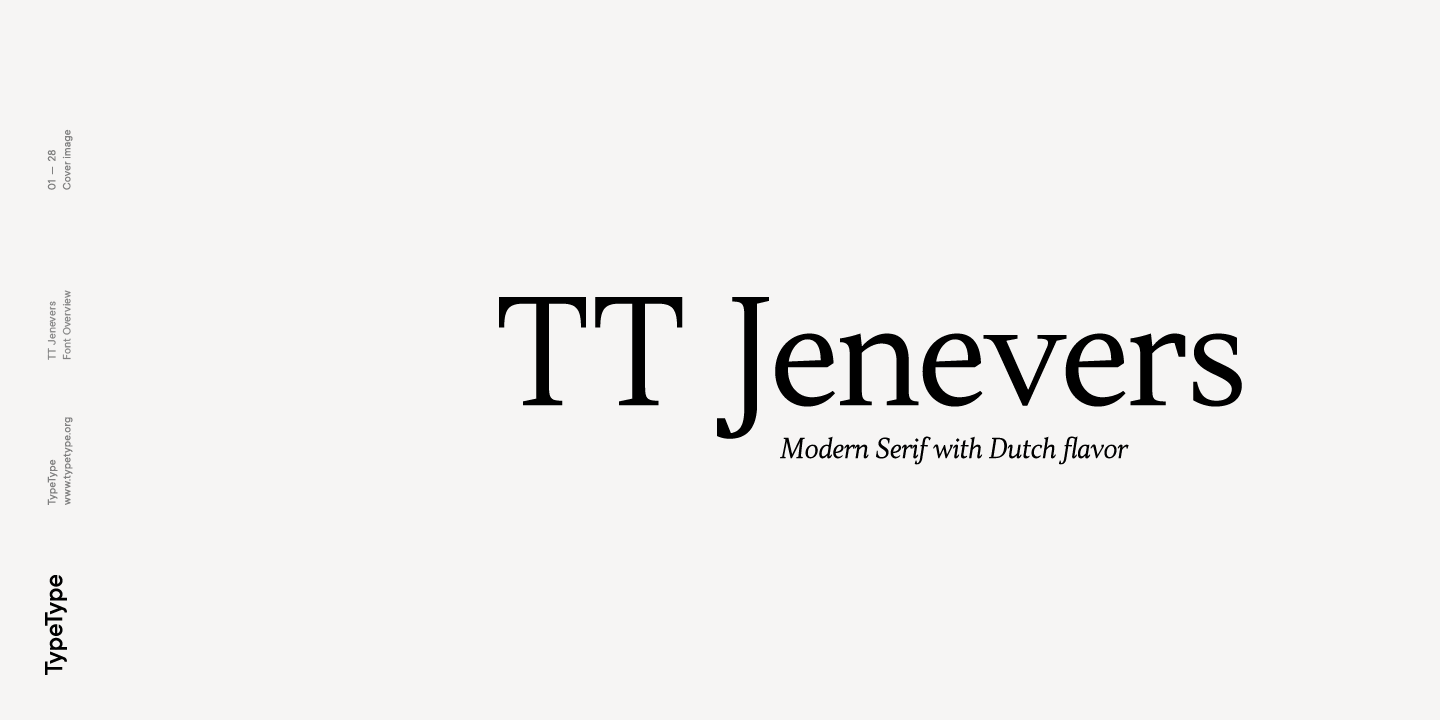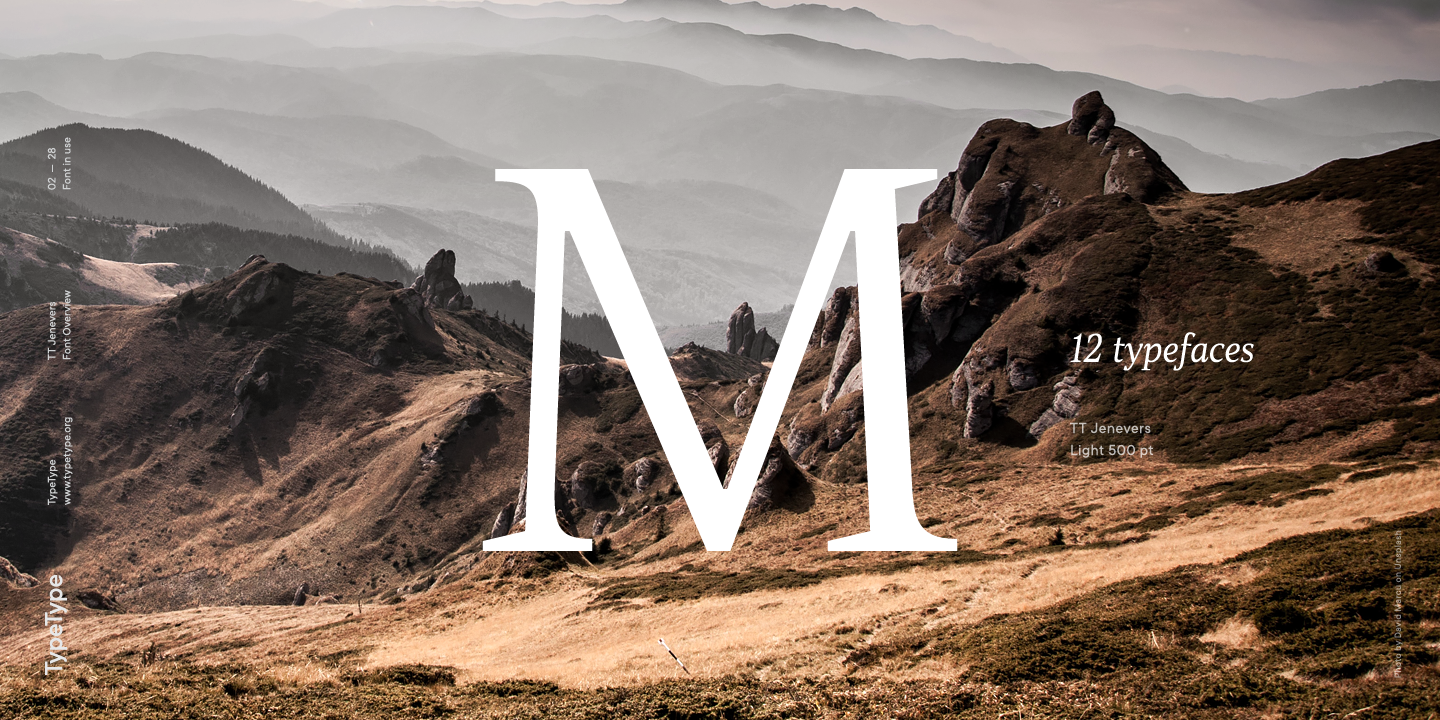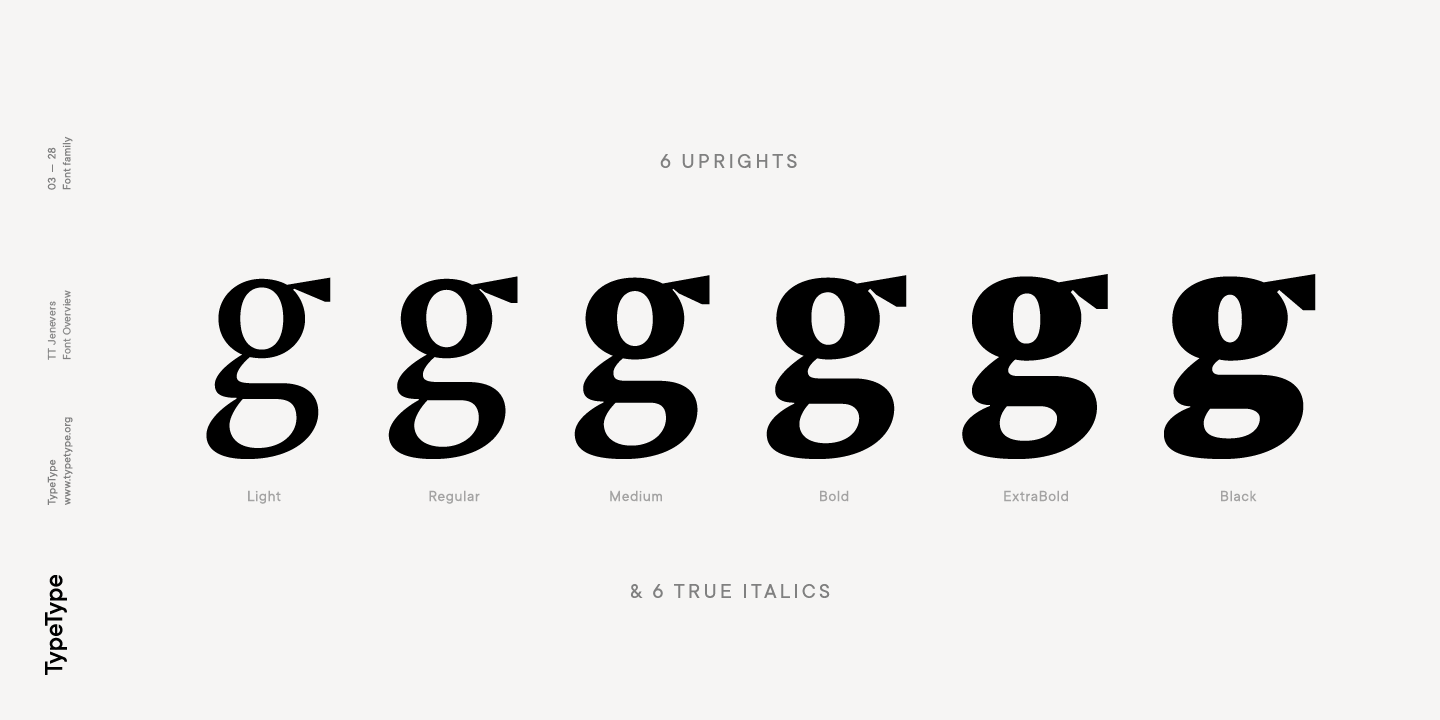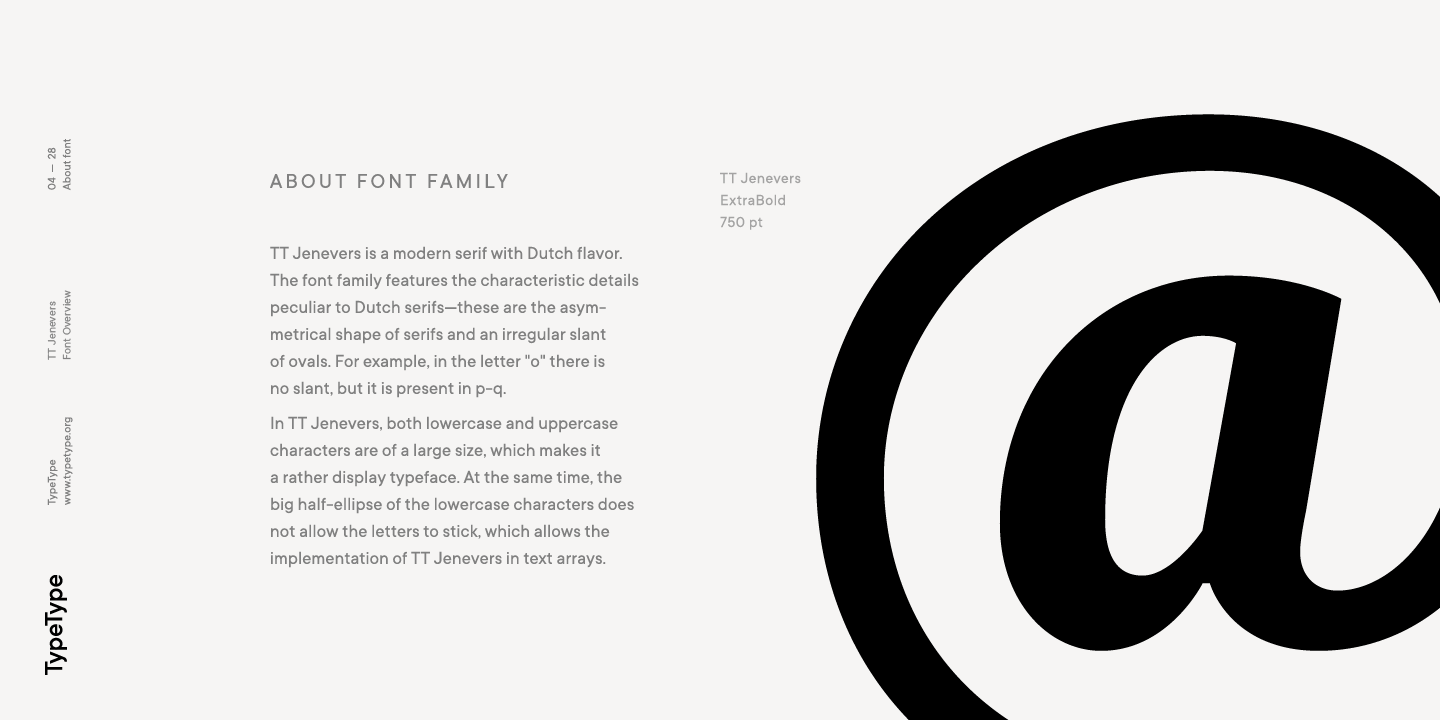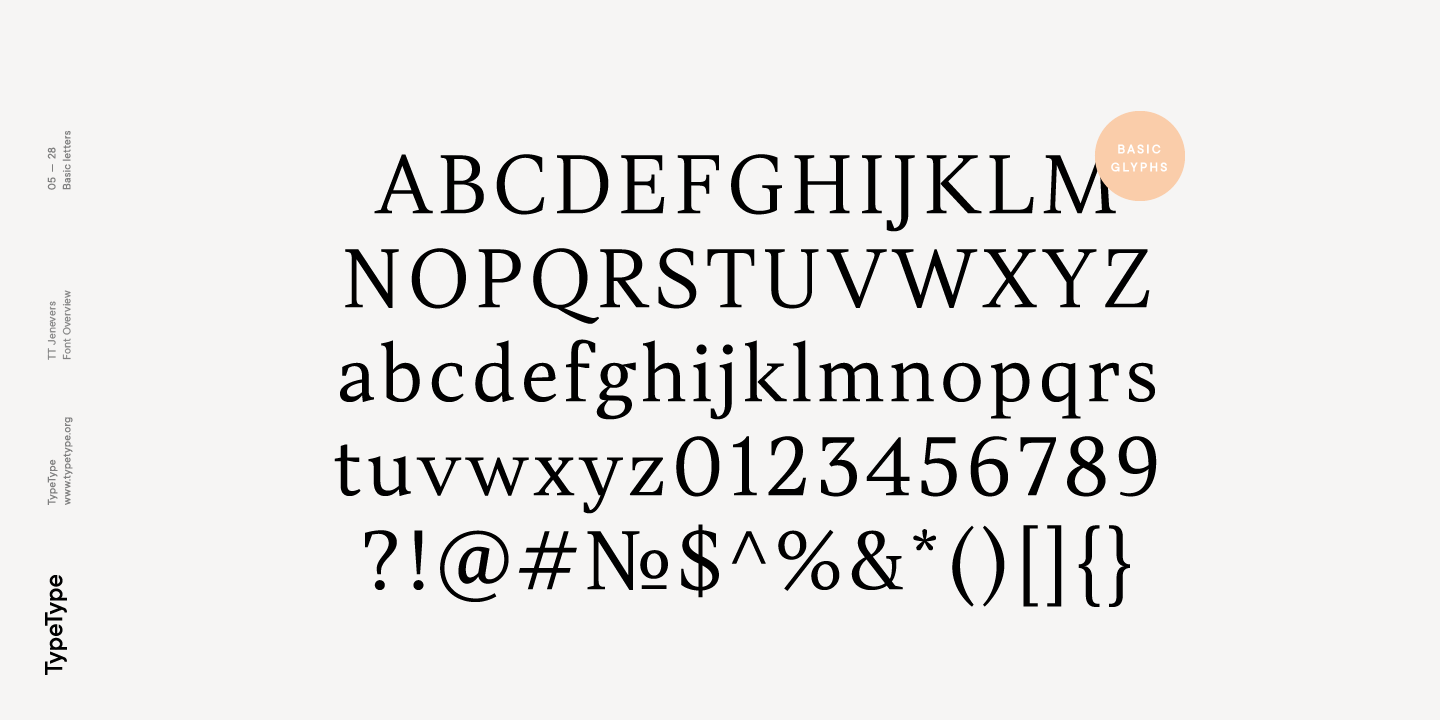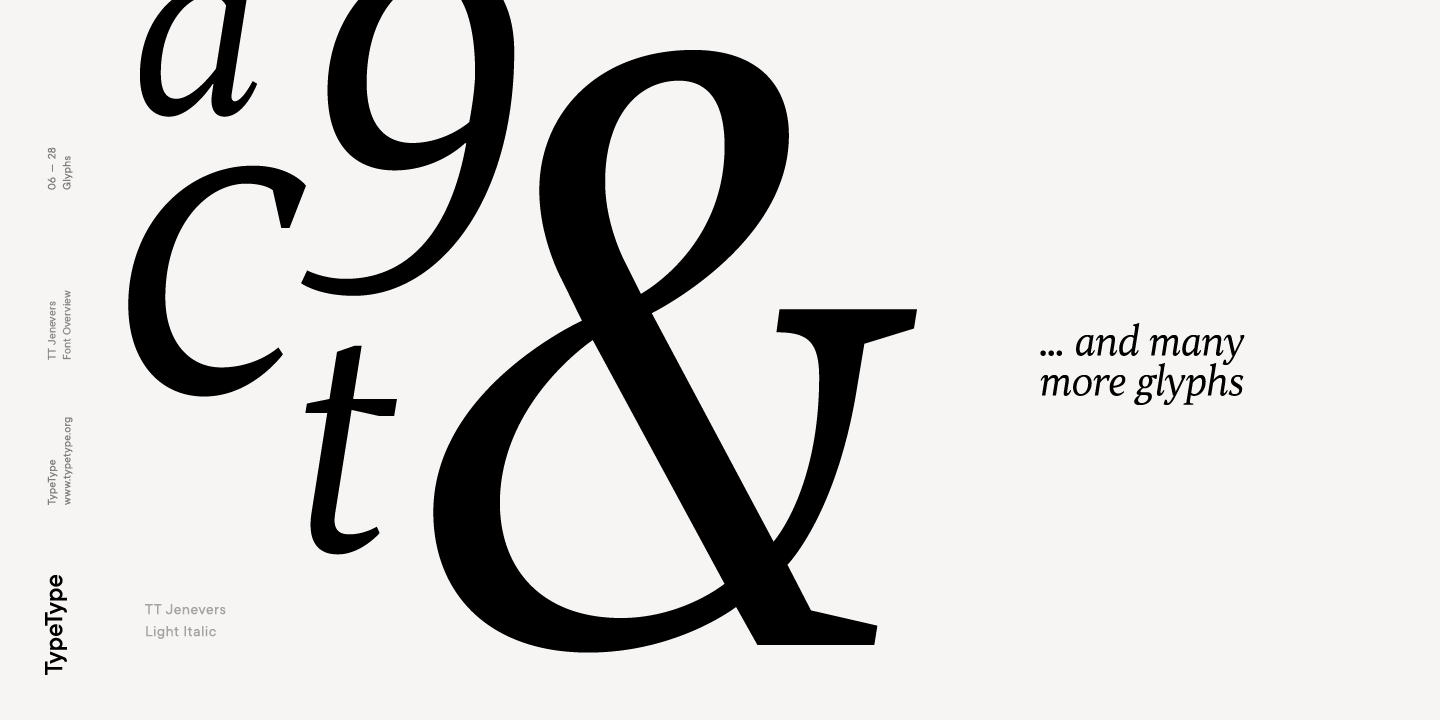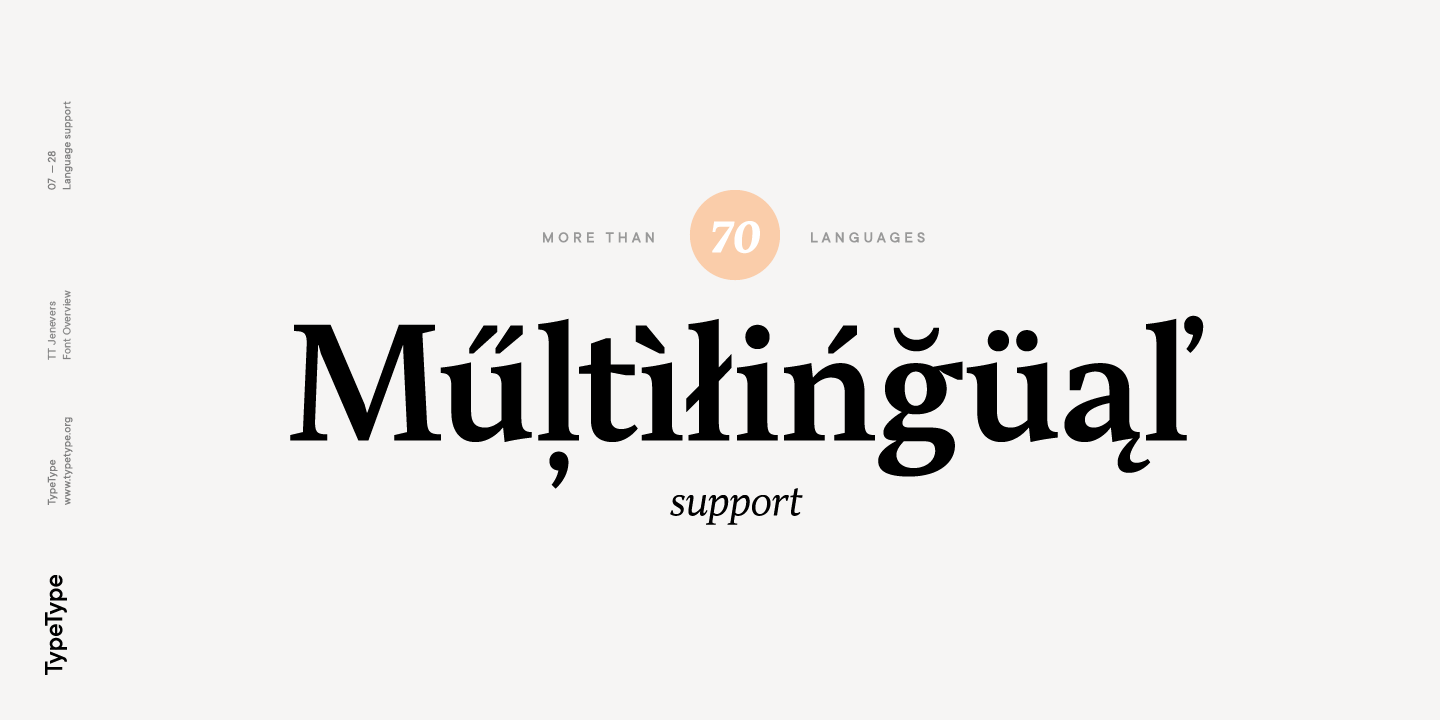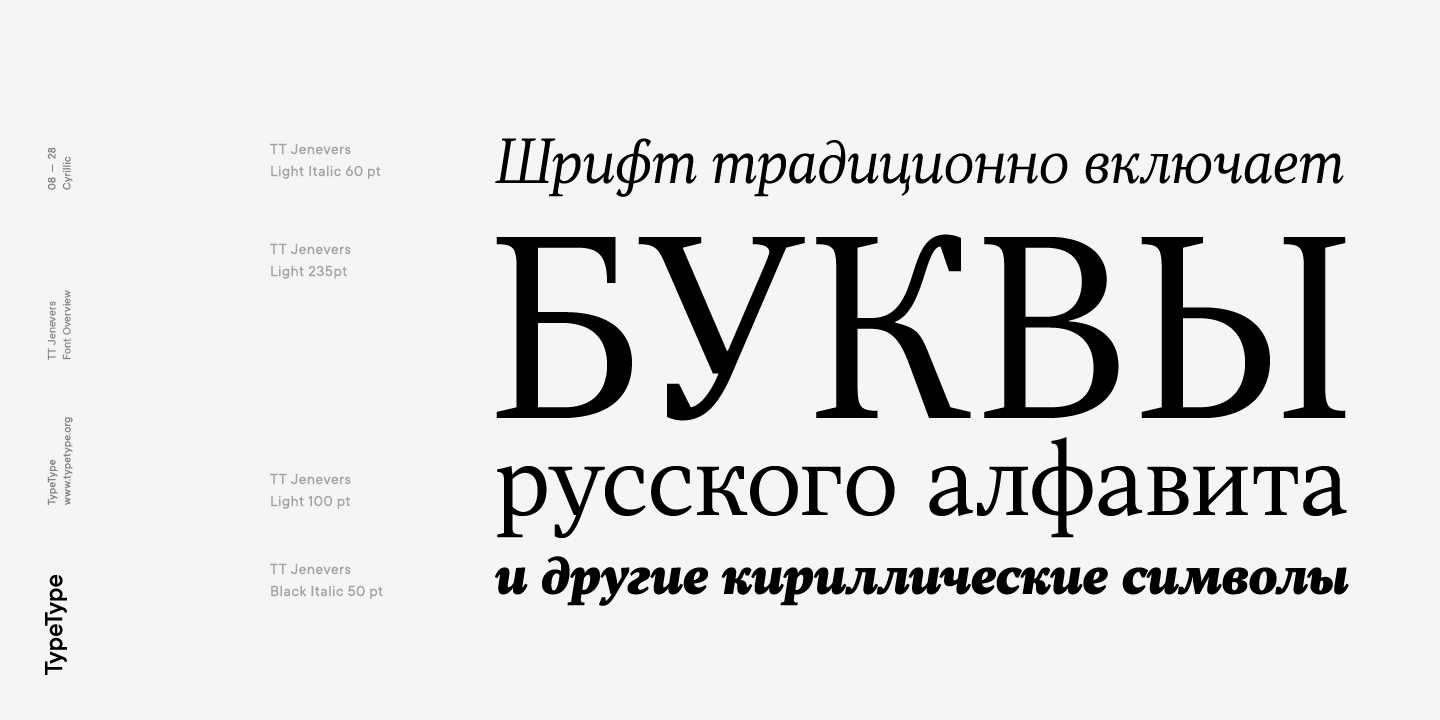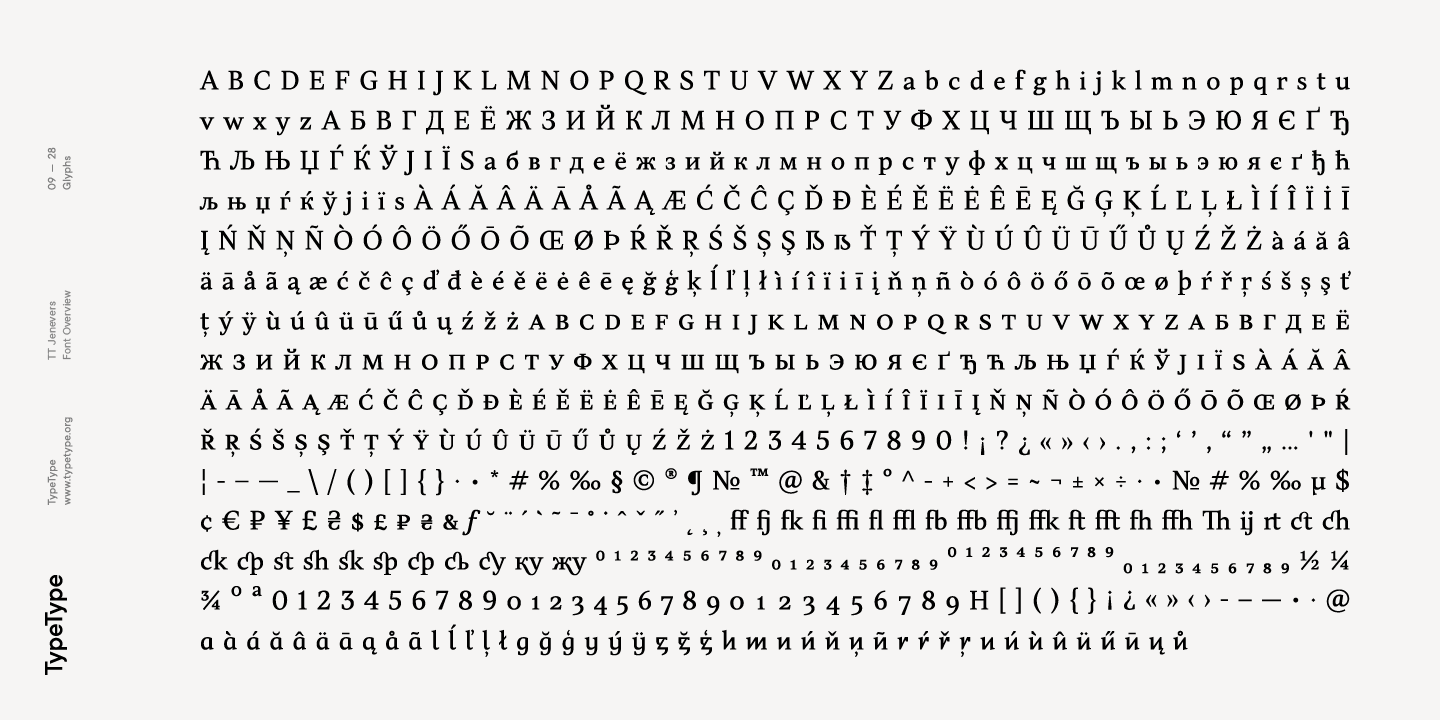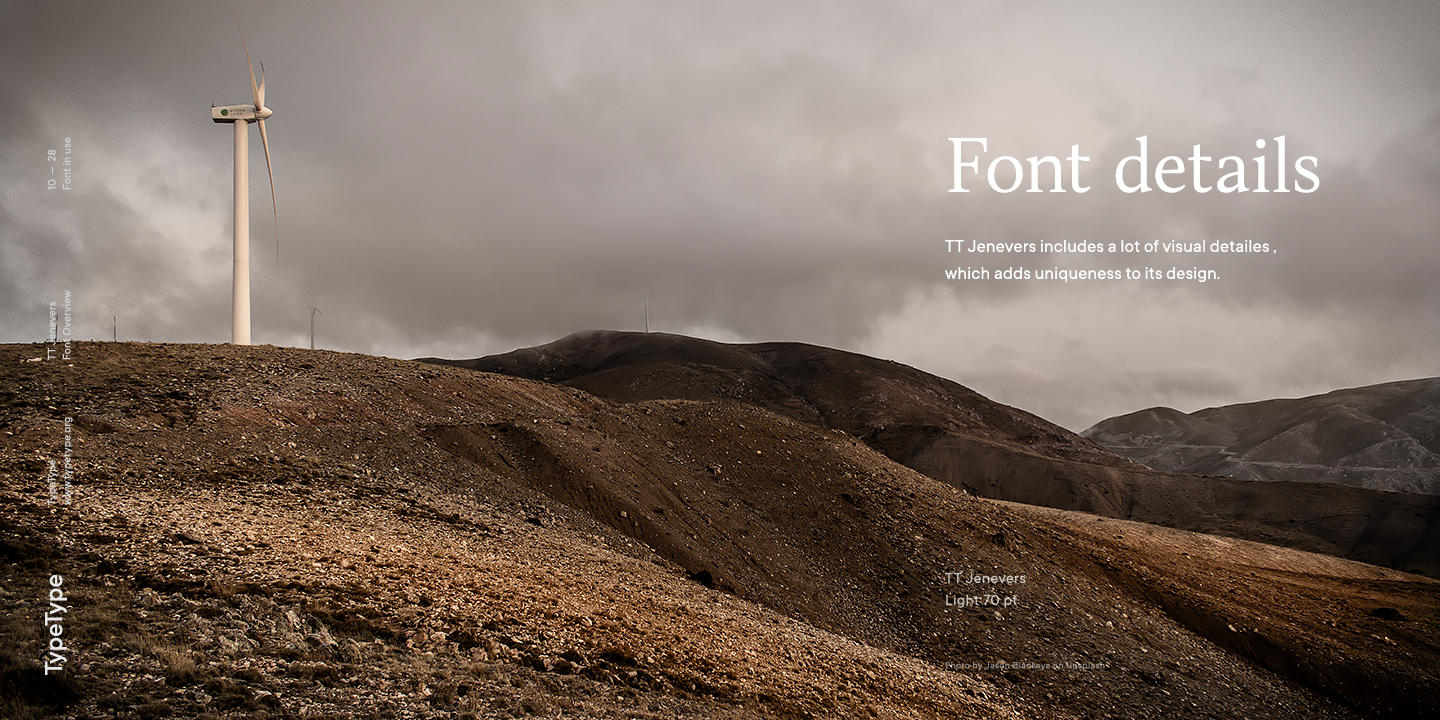
TT Jenevers Family (12 fonts)
TT Jenevers font family consists of 12 fonts (6 upright and 6 true Italics), each of which has more than 740 characters. The typefaces include small capitals for Cyrillic and Latin alphabets, 33 ligatures, standard and old-style figures, and stylistic alternates. We have prepared two dissimilar stylistic sets, which allow changing the nature of TT Jenevers to a more hand-written one, or adding a futuristic touch to the typeface. In addition, you can find a large number of other useful features in TT Jenevers: ordn, case, c2sc, smcp, frac, sups, sinf, numr, dnom, onum, tnum, pnum, lnum, liga, dlig, salt, ss01, ss02, zero.